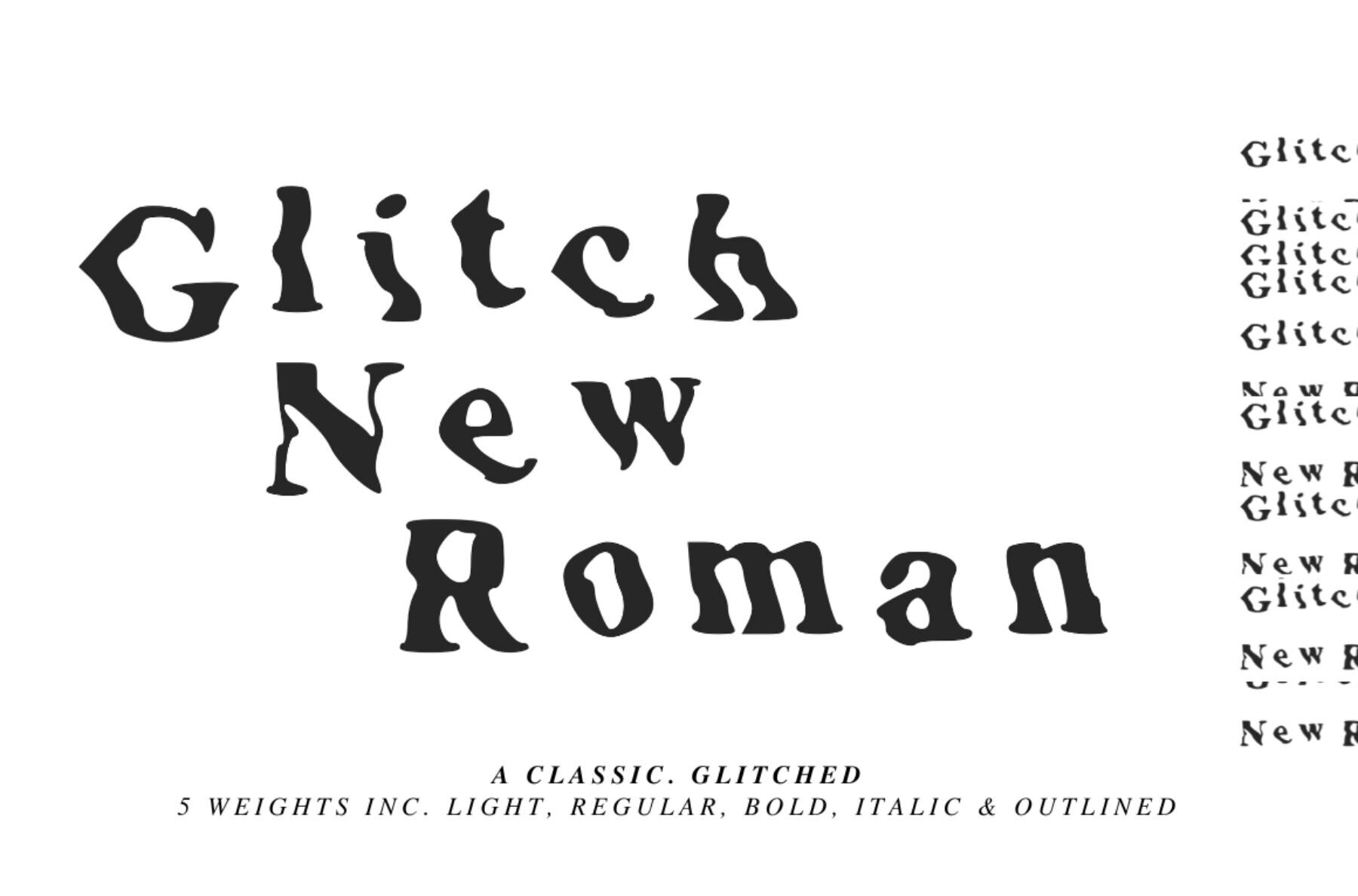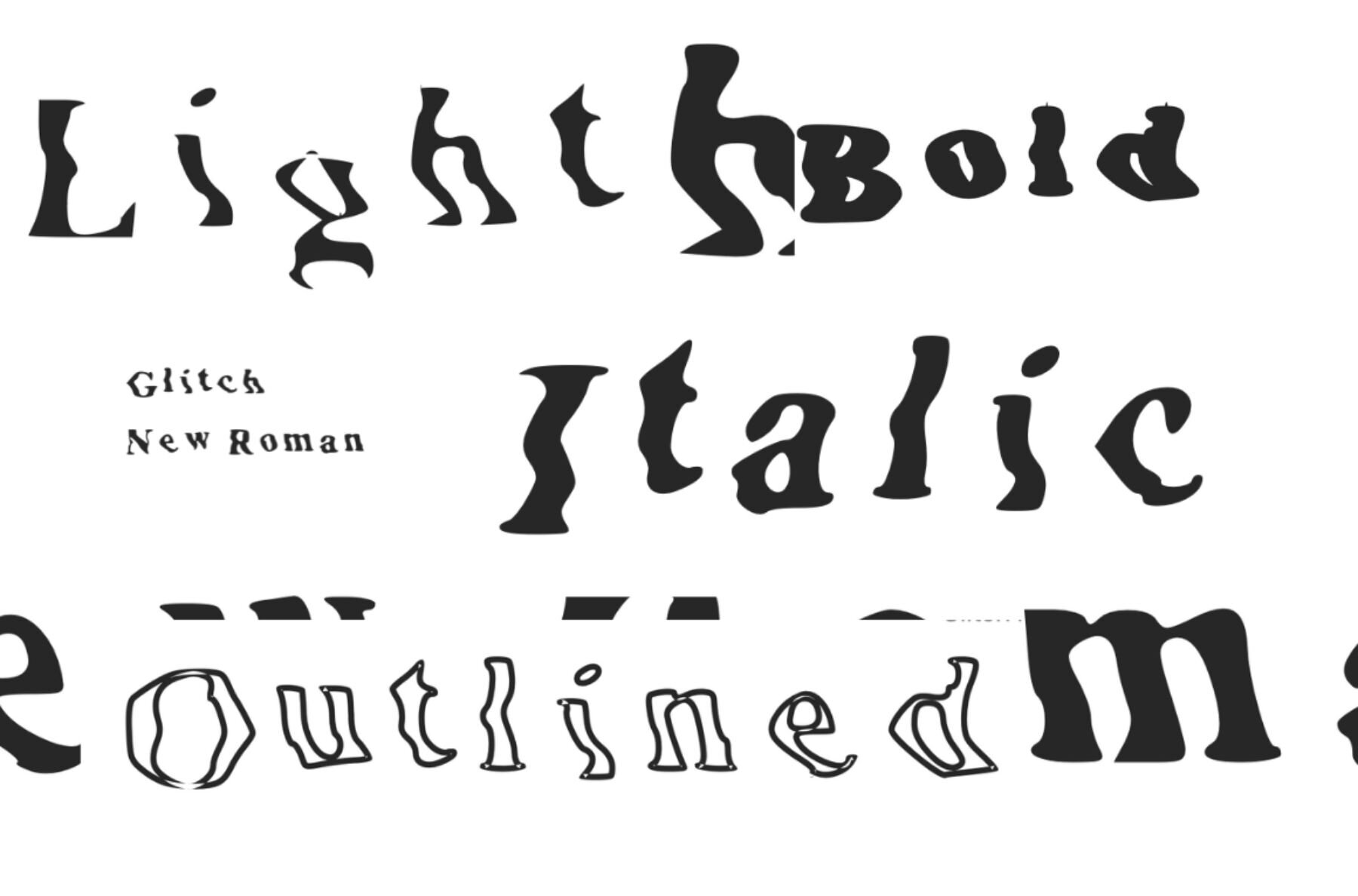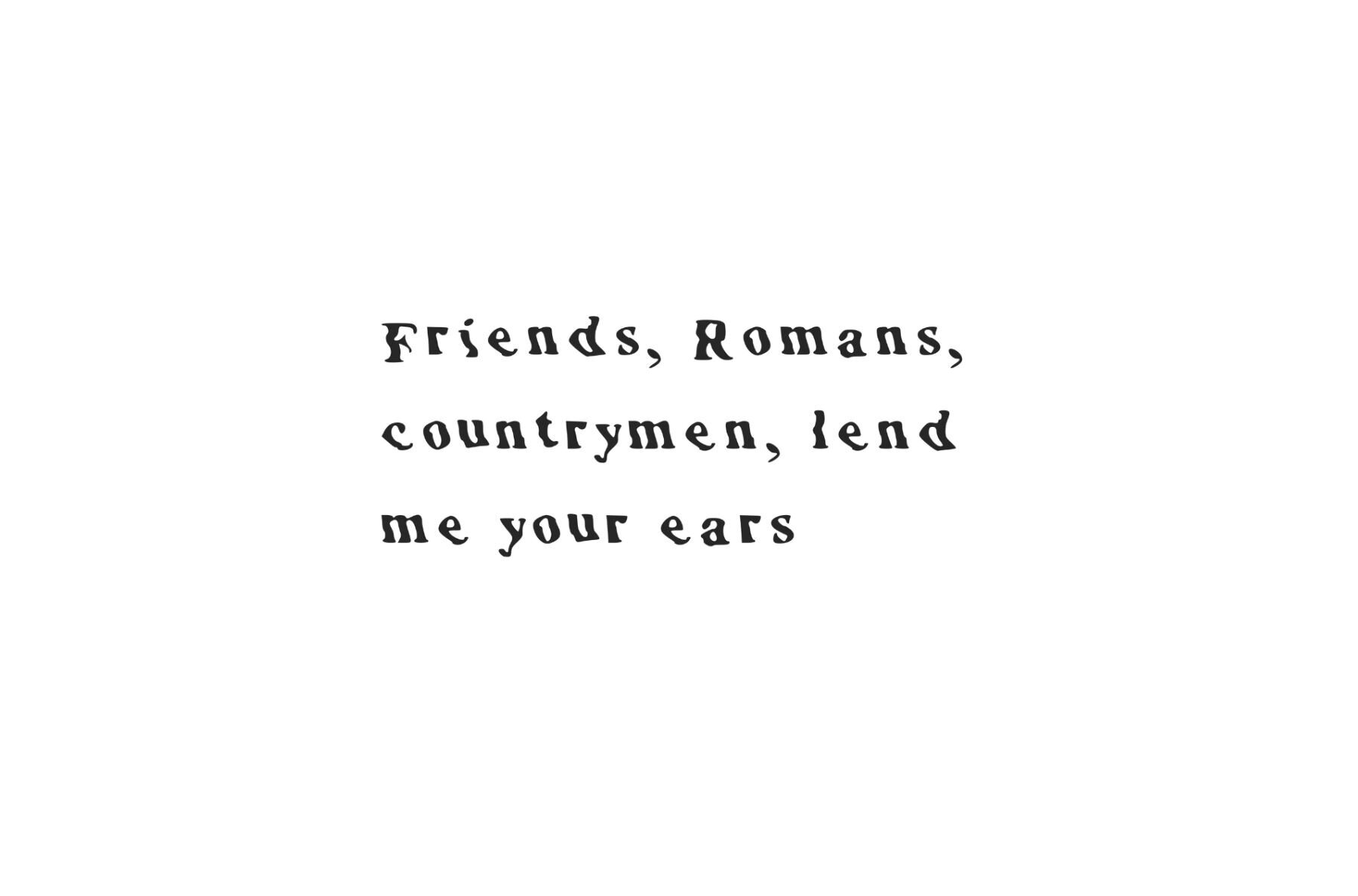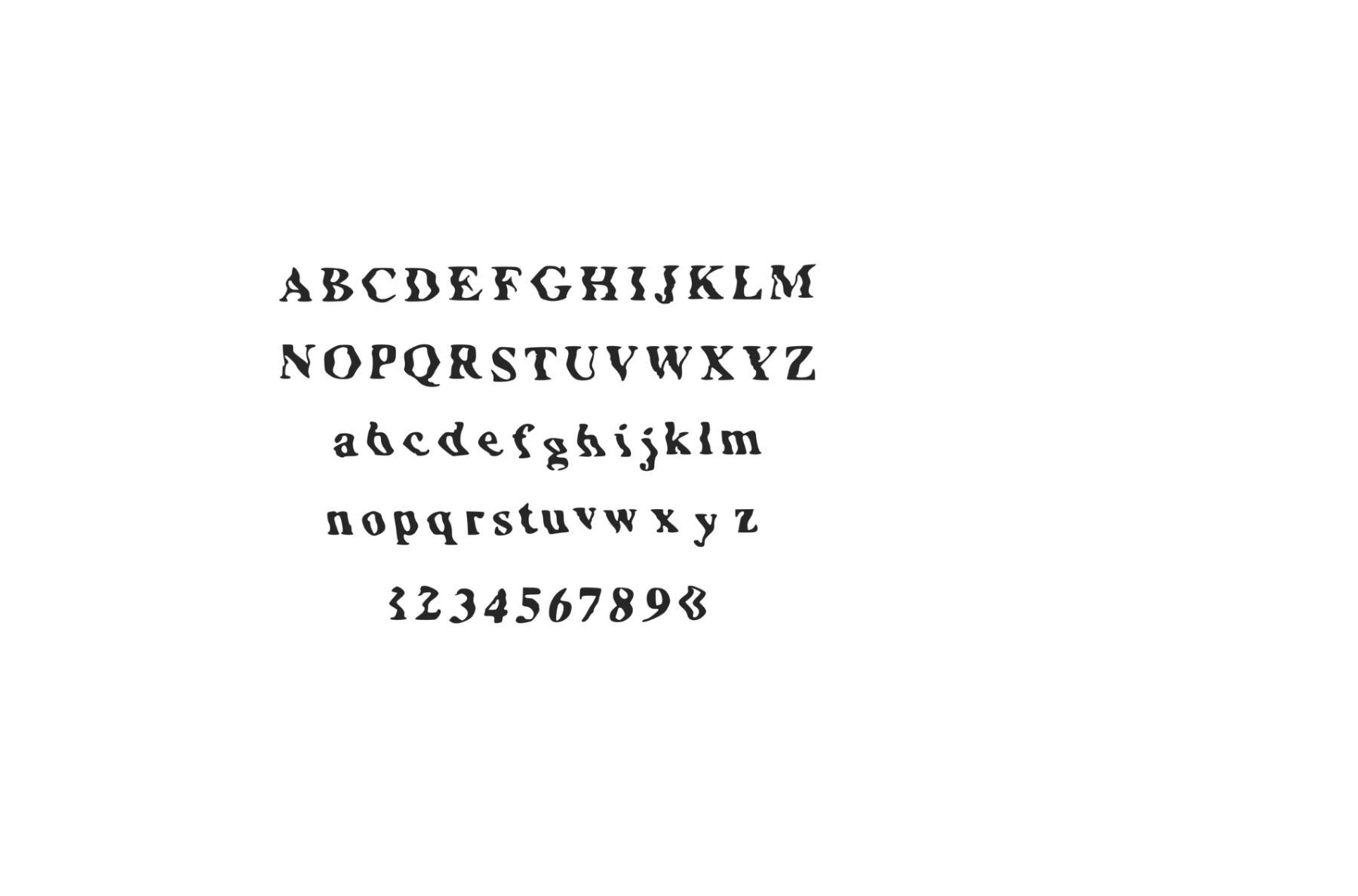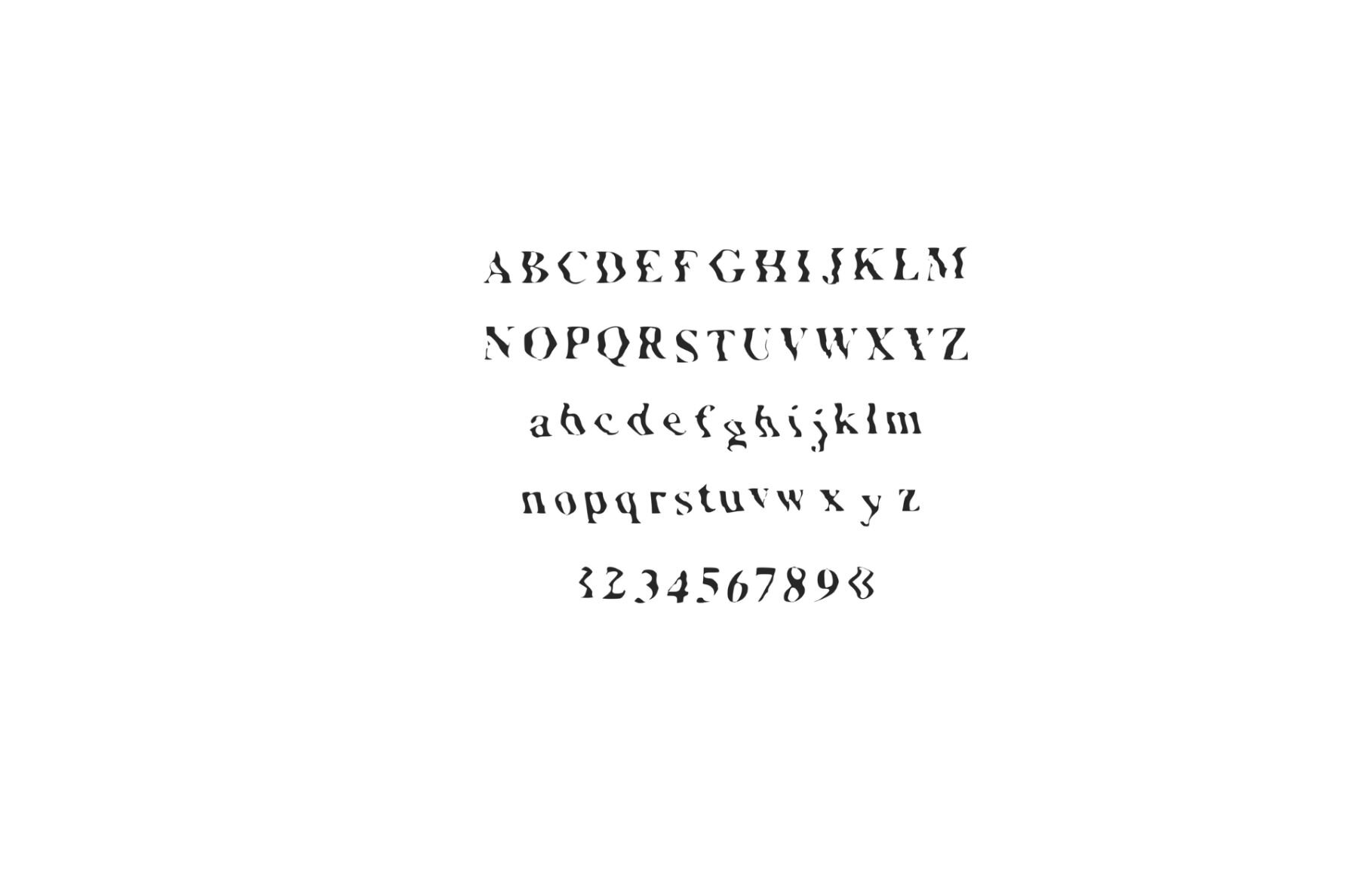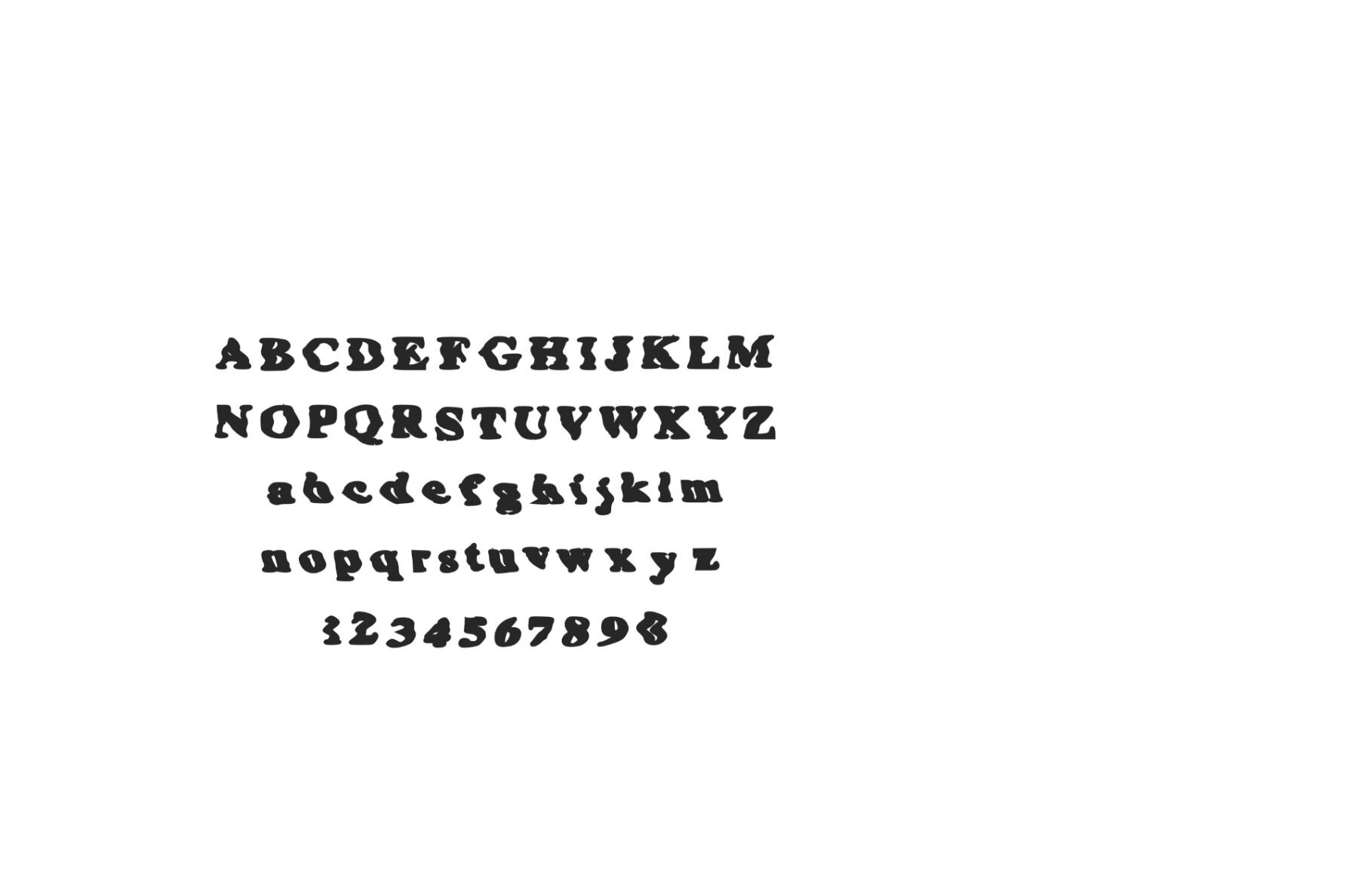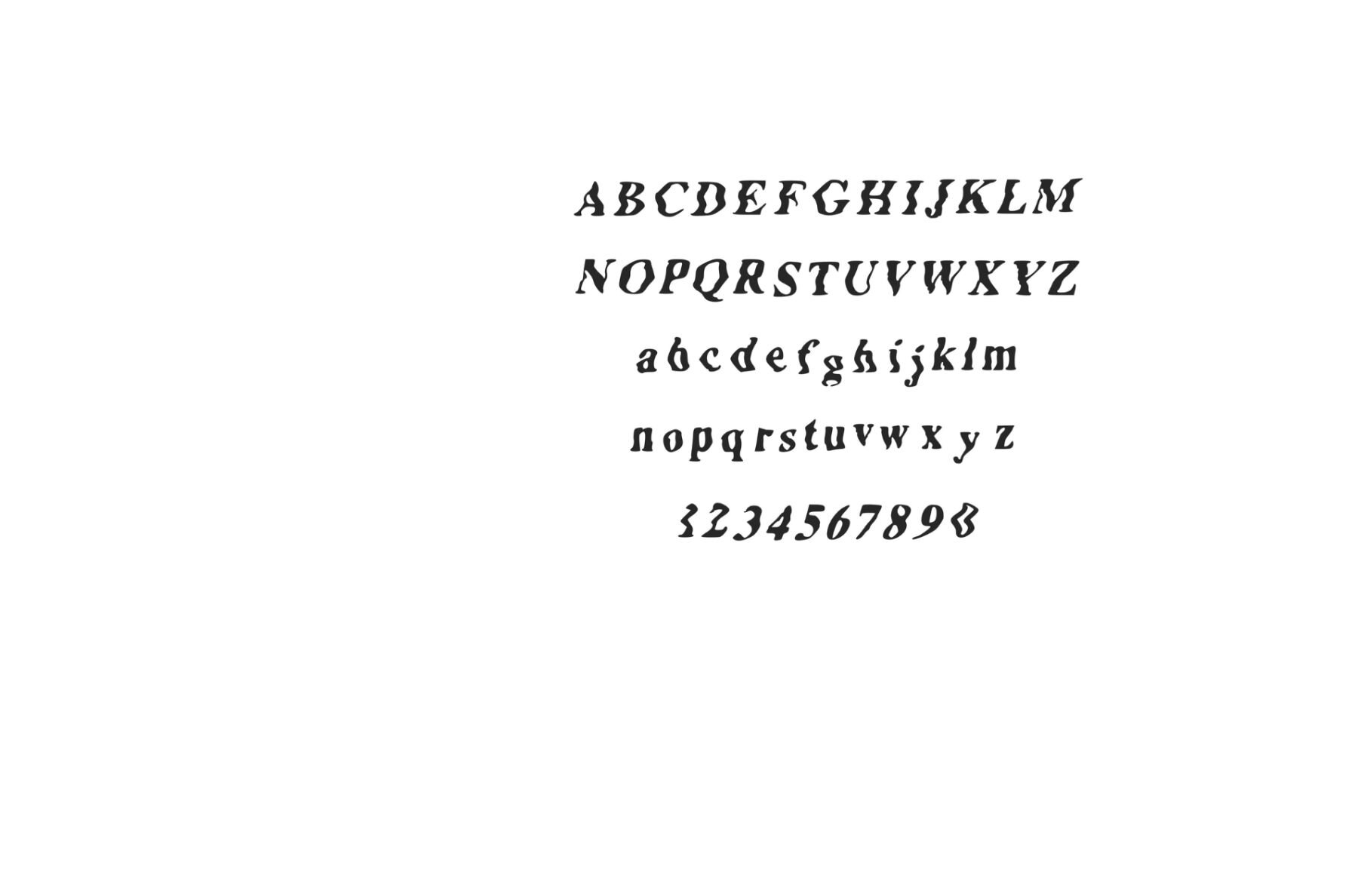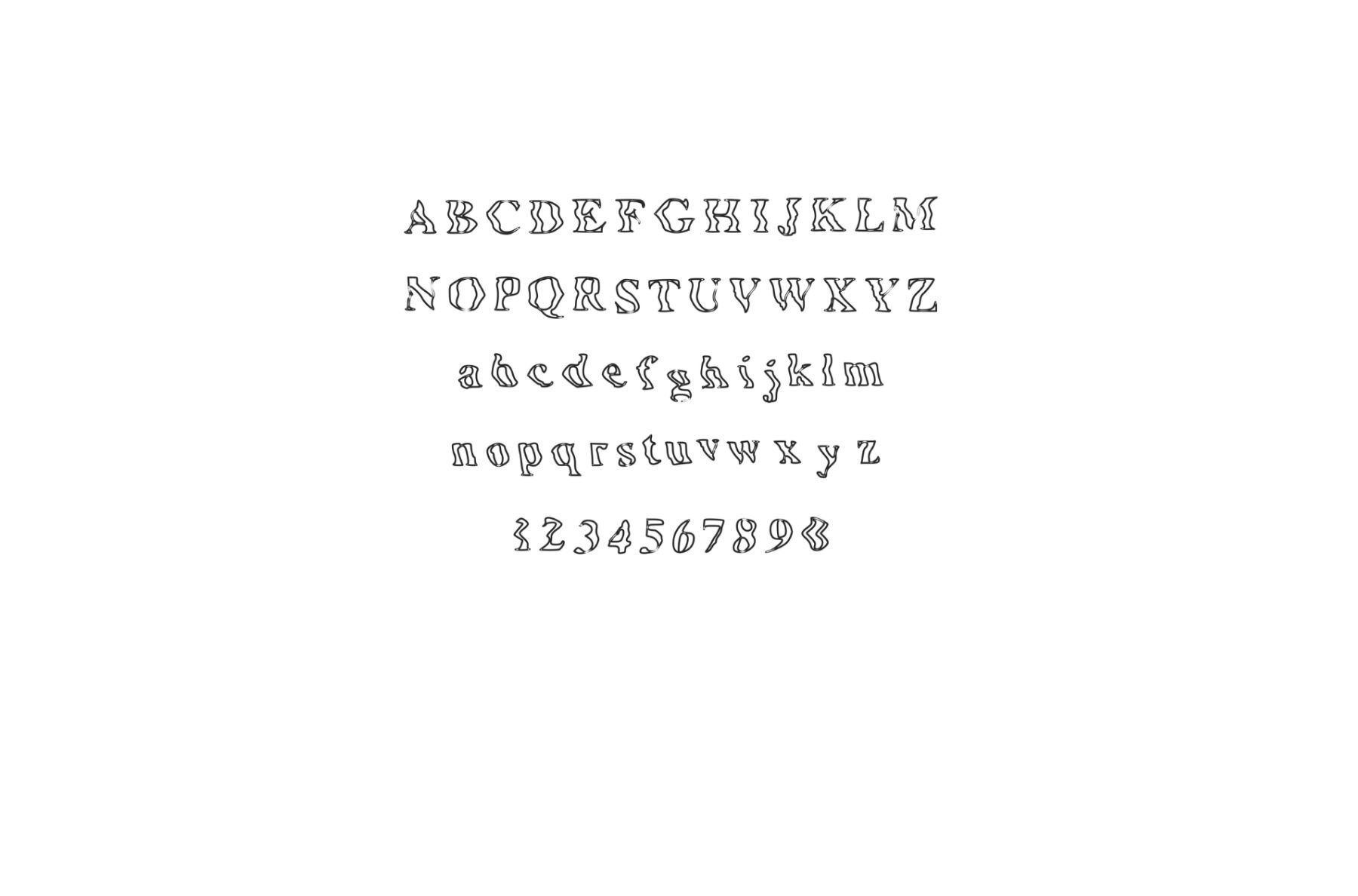
Glitch New Roman Font
Experience the charm of Glitch New Roman, a playful twist on a traditional typeface that brings a unique flair to your projects. Perfect for those who revel in hacker culture, digital art, or simply love the unexpected, this font adds a layer of creative distortion to your designs. Elevate your work with a distinct visual style that's both engaging and unconventional.Glitch New Roman: Quirky Display Font
Features of Glitch New Roman